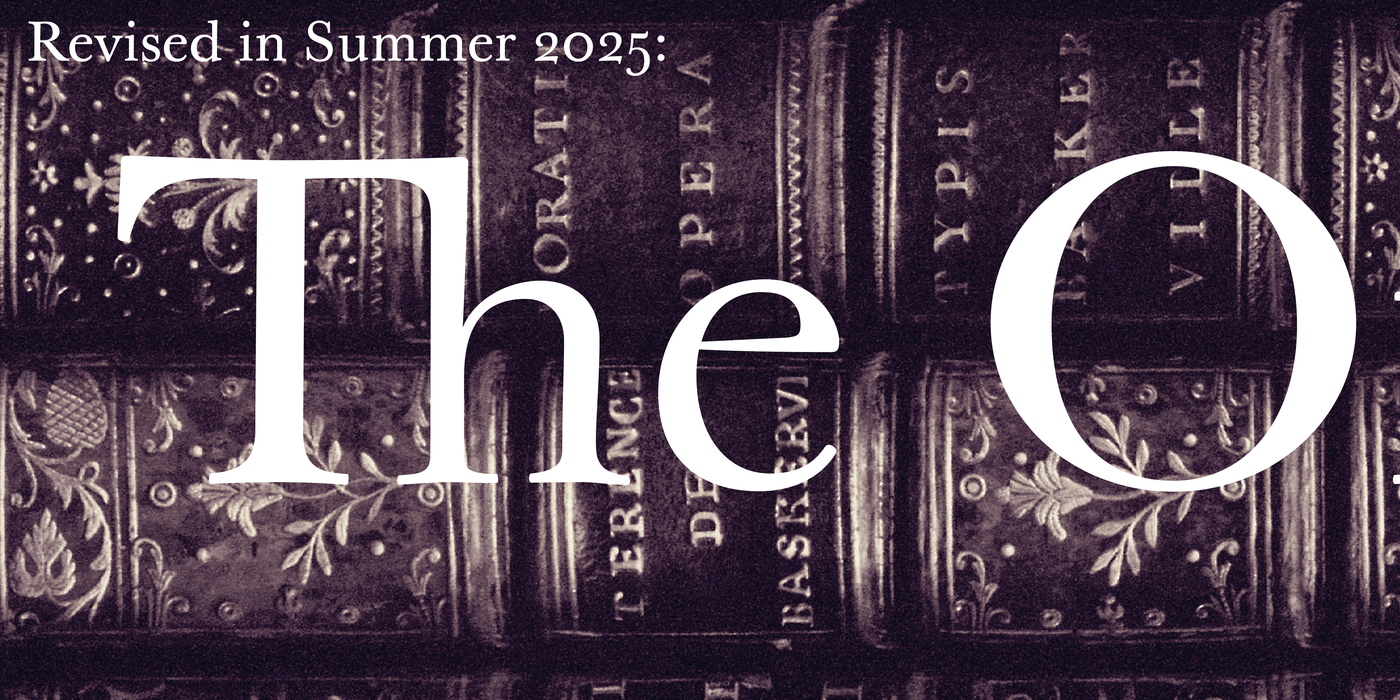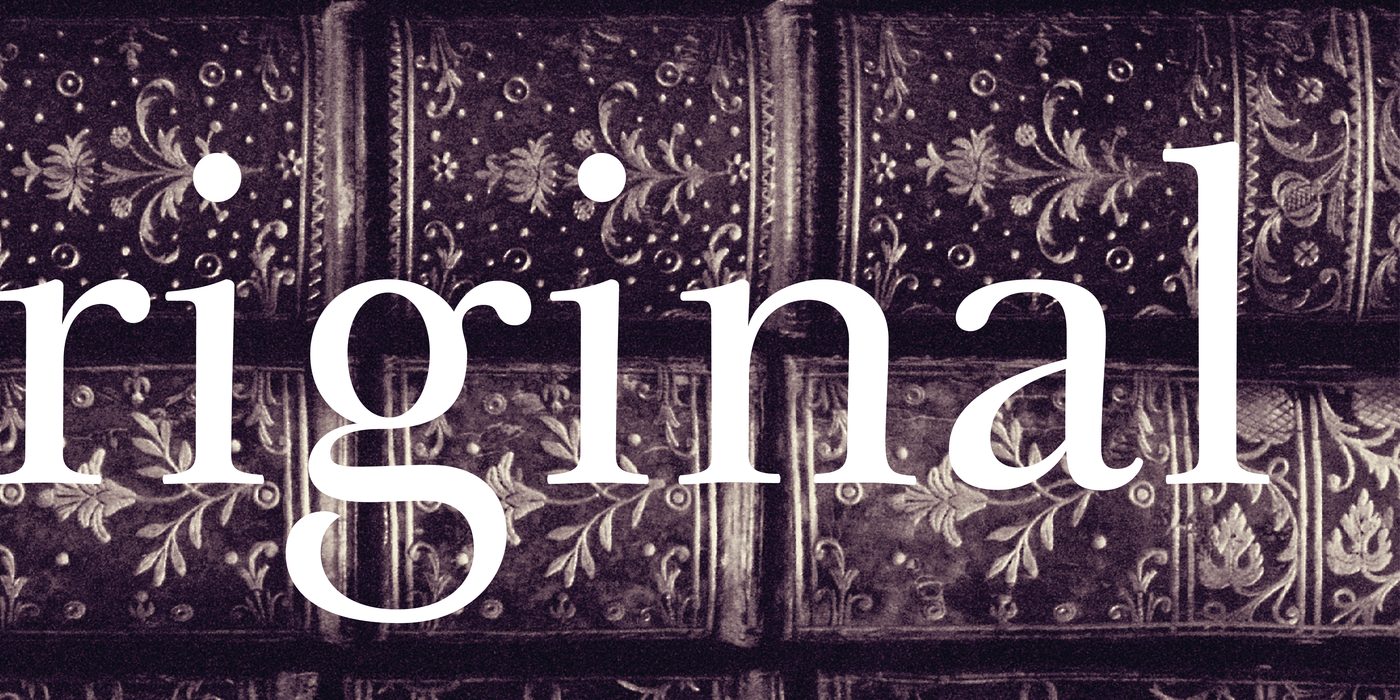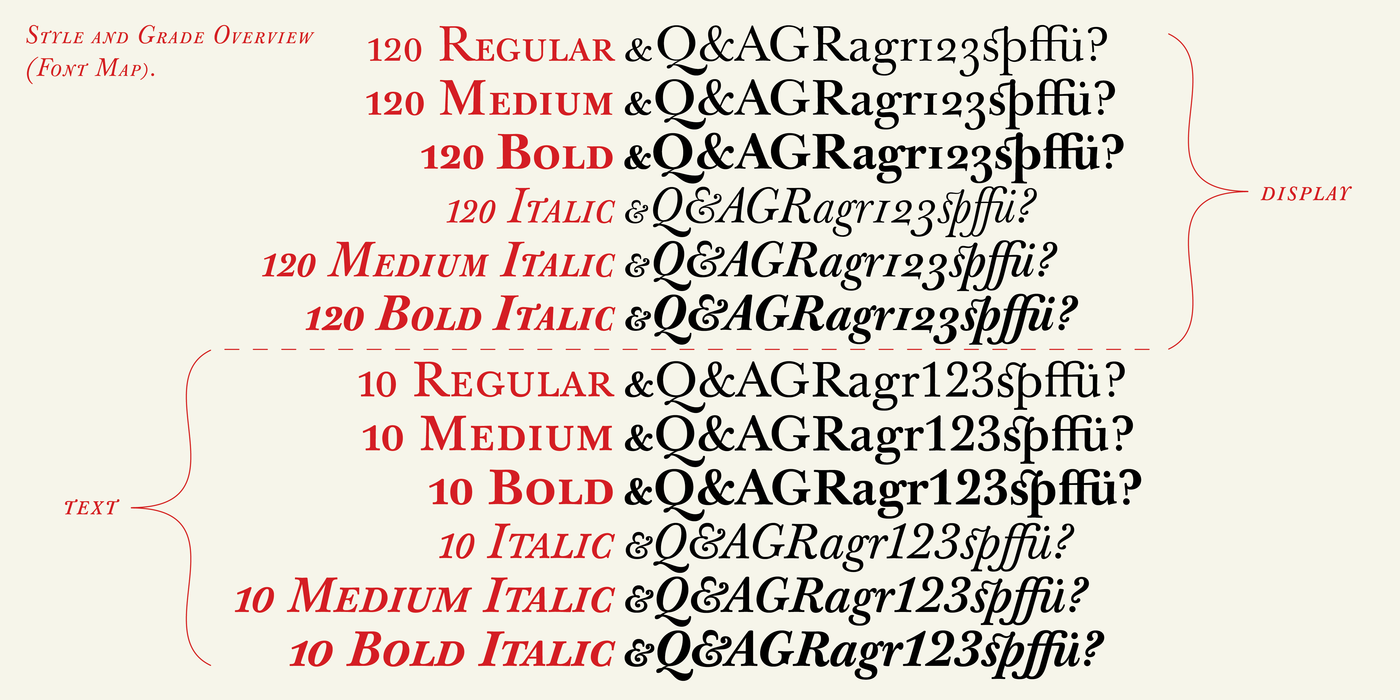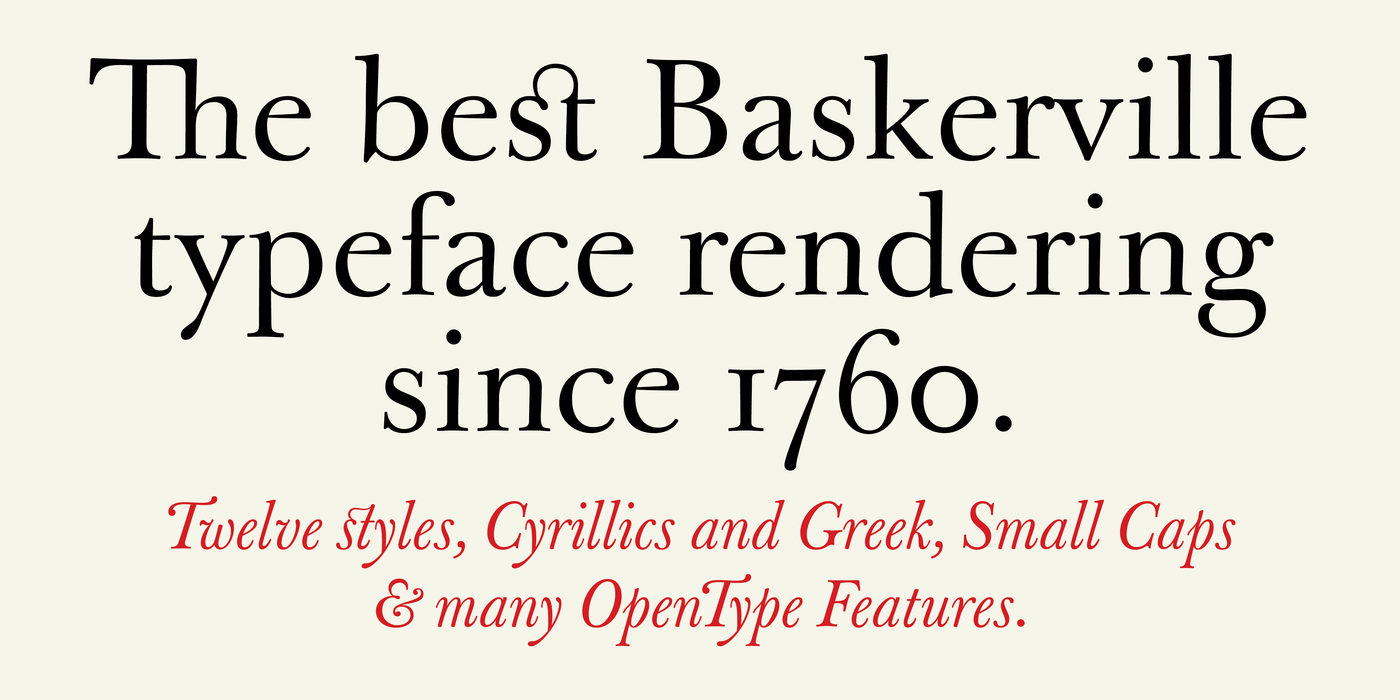
by John Baskerville
A faithful revival with a touch of letterpress, revised in summer 2025. Until recently the story of this type face ended with mediocre digital versions, which did not get at the root of its inspiration. Our pursuit of this paramount body type face of the 20th century began in Nové Hrady Castle, the place where a part of the depository of old prints of the National Museum Library is kept, in the summer of 1999. Thanks to the understanding of the librarian Petr Mašek we were allowed to study and photograph four rare volumes from Baskerville’s printing office, dating from about 1760. We selected as the most successful models for the digitalization of this type face its Roman and italics in the size of about today’s 14 points, which Baskerville used for the printing, among other things, of his folio Bible in 1763 and Vergil’s works in Latin in 1757. These were large-size, stately prints on paper smoothed out by hot copper calender rollers. When composing the pages, Baskerville emphasized the importance of the blank space, just as the effect of the majestic austerity of the setting, which became an inspiration for Neo-classical typographers. He strove to remove everything which obstructs legibility, working without ornaments and rules, neatly, and with large margins. He proceeded along these lines also when designing his new type face. His punchcutter John Handy was given the task to make the type face different from the then fashionable Caslon, which was a surprise for a certain part of typophiles of the period. Baskerville perhaps anticipated certain elements known from Bodoni and Didot, which is why nowadays everybody calls it a “transitory” phenomenon. A detailed evaluation of Baskerville’s heritage, however, remains a task for historians. Our analytical transcription enhances rather the artistic and visual qualities of his type face.
When digitalizing the type face, we did not have at our disposal a complete alphabet – partly because Baskerville did not solve some of the signs (some of them did not even exist at the time), partly because we were loath to go to Cambridge where the greater part of the original punches is deposited. But there was no need to do this. For inherent in every fragment of any typeface is the principle, according to which it is possible, with a little bit of natural feeling, to complete the set of signs. An analytical transcription is also to remove any potential shortcomings of the source of inspiration and must not take over mechanically all details of the design. Even creators of genius, however, make mistakes sometimes and, therefore, in spite of the fact that we officially speak about “a transcription”, what was involved in the case of all complementary designs was a fairly fundamental reworking. Our aim was not so much to be reverently faithful to the original, as to preserve the spirit of the type face and to breathe new life into it. Baskerville is a type face with the character of a gentleman, a type face of sober elegance and clear design. Its nature is remote from dramatic contrasts, as we know them from the Continental typography of the Late Baroque period. A project of a type face family which includes twenty designs cannot rely on a single pair of tired eyes; that is why we are again grateful to Otakar Karlas for his valuable advice, especially when putting the finishing touches to the typeface. It was upon his recommendation that, among other things, the anatomy of the basic (original) design was reinforced, the rhythm of the italics in text sizes was made more tranquil, the balance of the “&” sign form and the colour of the small caps were improved. The result is an absolutely ordinary and inconspicuous type face – a worker in the service of literature. The softness of its design predetermines it for every type of fiction and poetry, while its rational construction makes it useful also for scientific publications. Having worked on Baskerville’s type face for more than a year, when we see it now, it feels like meeting an old friend.